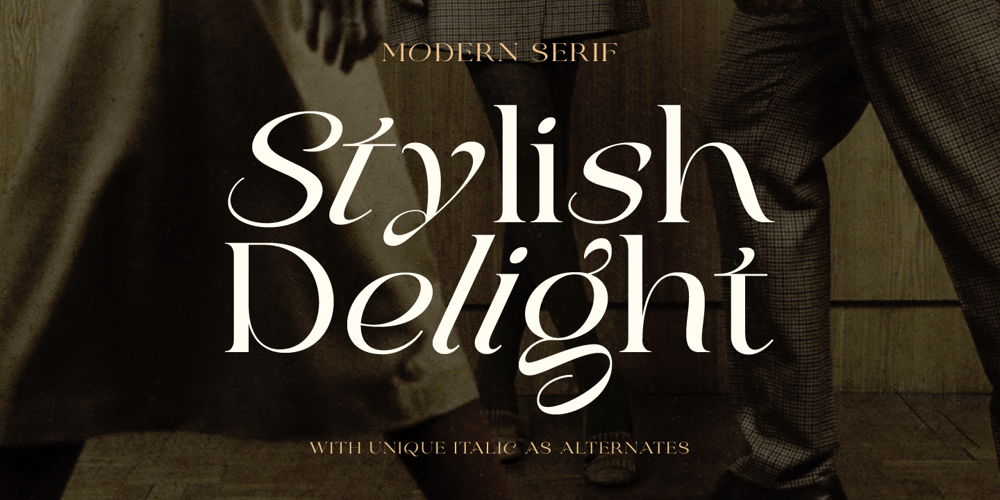
Stylish Delight Font Family was designed by Sarid Ezra and published by Sarid Ezra. Stylish Delight contains 1 styles and family package options. Introducing, Stylish Delight – Modern and Luxury SerifStylish Delight is a stylish and modern serif with unique italic as alternates that will make your presentation or logo more attractive and fashionable! You can use this font for your branding, logotype, or even quotes. This fonts support Multi Language. By combining standard and alternative characters, you will get the best look with endless possibilities.Features Uppercase & Lowercase Number & Symbol Multi language Italic as Alternates PUA Encoded